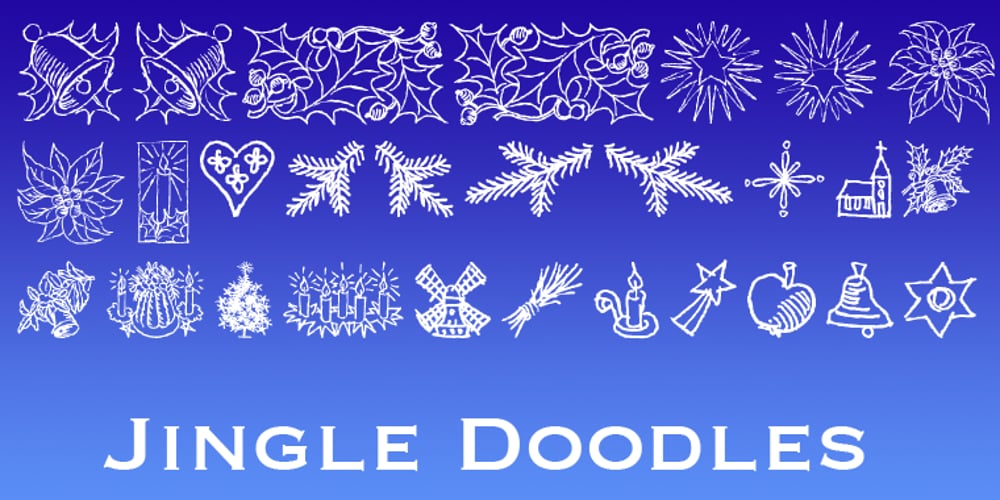
Jingle Doodles Font Family was designed by Gert Wiescher and published by Wiescher Design. Jingle Doodles contains 1 styles and family package options. Jingle Doodles is for those Christmas occasions, and for those alone! I sell them very cheap because it’s Christmas time. Your red-nose-reindeer-type-designer Gert Wiescher Ho-Ho-Ho!